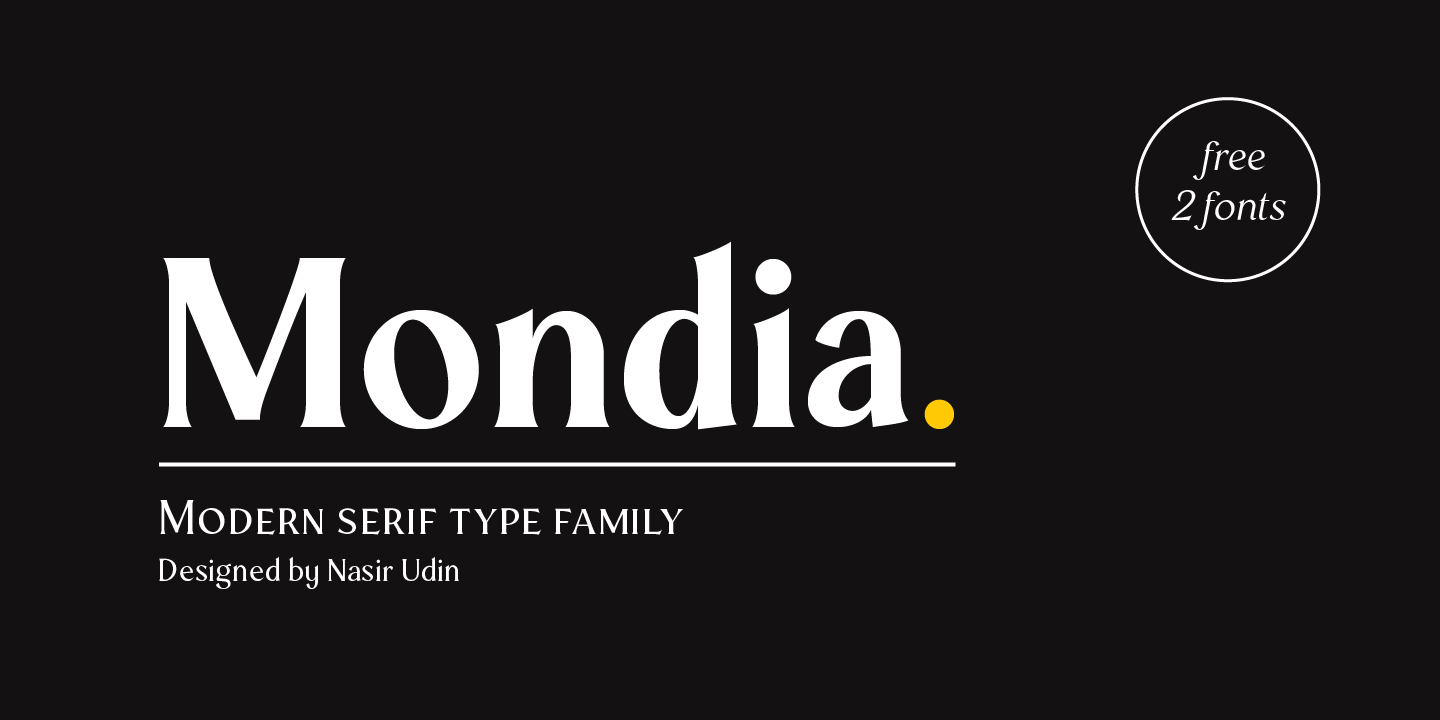
The Mondia Font is perfect for international business branding, global corporate communications, multinational company presentations, world travel materials, diplomatic documentation, international conference signage, cosmopolitan magazine layouts, global trade publications, universal product packaging, and sophisticated multilingual designs.
What makes the Mondia Font exciting is its remarkable ability to embody the spirit of global connectivity and international sophistication through universally appealing letterforms that transcend cultural boundaries while maintaining professional excellence. This distinguished typeface features balanced proportions, culturally neutral character construction, and internationally refined design elements that instantly convey credibility, unity, and the cosmopolitan sophistication required for successful global communication. Each letter represents the harmonious blend of diverse cultural influences that defines our interconnected modern world.
The Mondia Font family includes regular, italic, bold, and condensed versions, along with international symbols, currency signs, and multilingual decorative elements that enhance its global appeal across various international and corporate design applications.
Whether you're creating multinational brand identities or designing international business materials, Mondia Font Free Download delivers unmatched versatility and authentic global sophistication. Its expertly crafted universally appealing letterforms ensure excellent readability across diverse cultural contexts while maintaining that essential international character that speaks to global audiences. The font's international features include contextual alternates, multilingual ligatures, and global variations that automatically create authentic worldwide business aesthetics. International corporations and global brand strategists consistently choose this font for projects requiring genuine worldwide credibility and sophisticated international appeal. The Mondia Font transforms ordinary text into powerful declarations of global unity, making it an essential component of any designer's international typography portfolio.